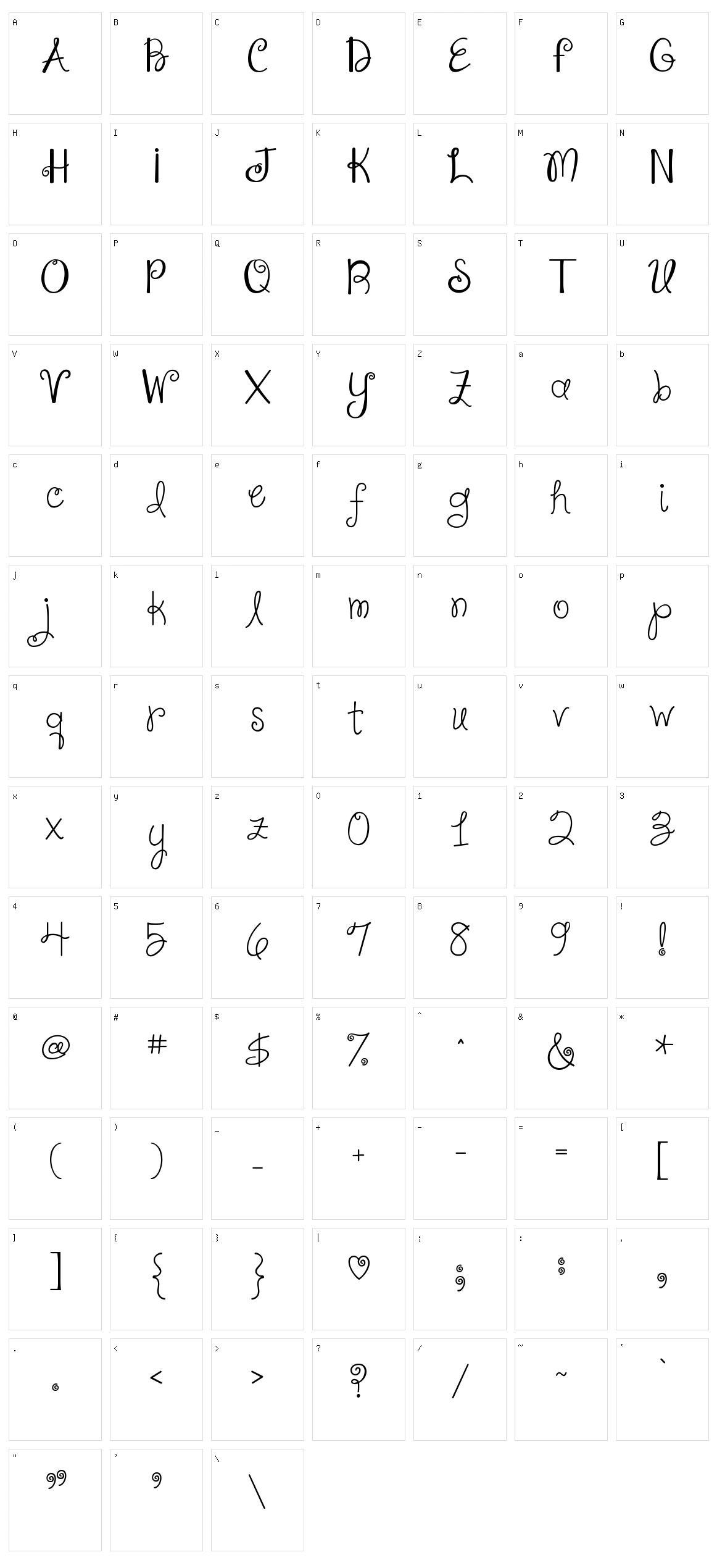
The free font Janda Shine Your Light On Us is carefully designed by Kimberly Geswein, showcasing a thoughtful balance of creativity and usability and falls under the Script font style. When you download the ZIP file, it contains only 36.76 KB of font files, making it lightweight and quick to download. Please review the license details below to understand permitted usage and distribution rights. If license information is not available, we recommend using this font for personal projects only or contacting the author directly for commercial usage permissions.